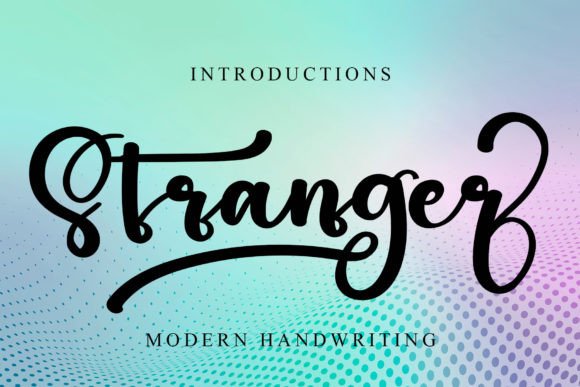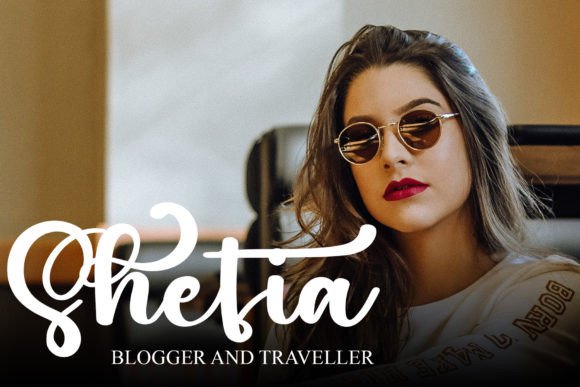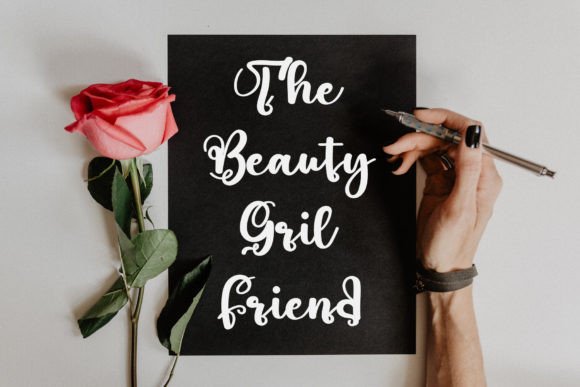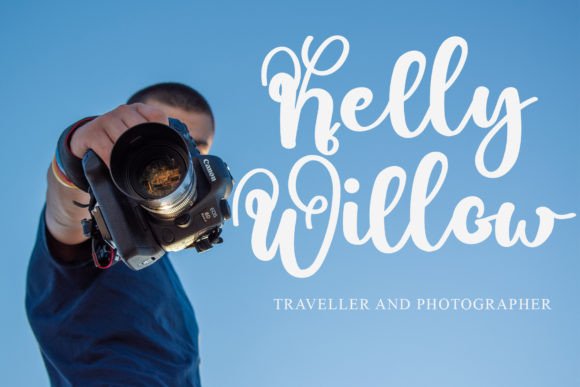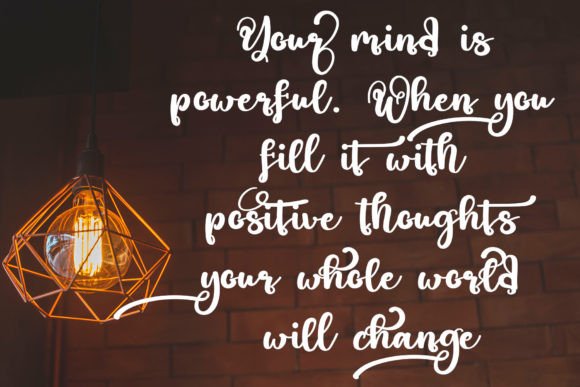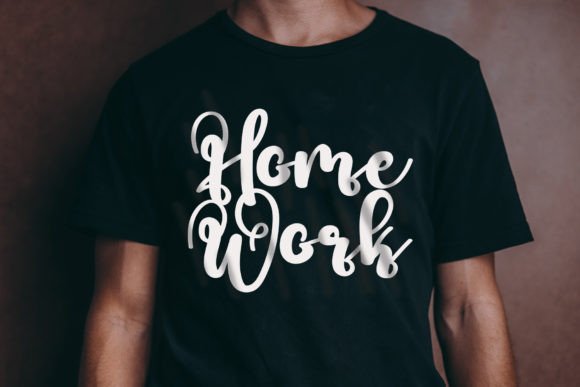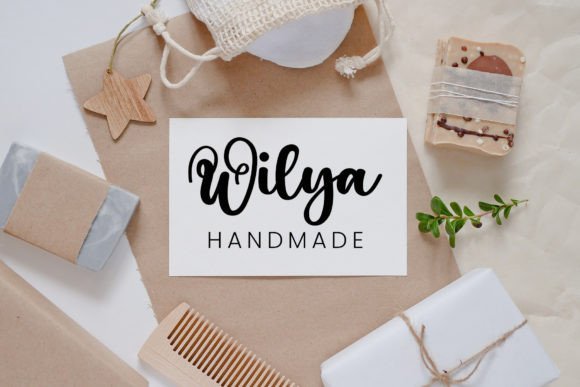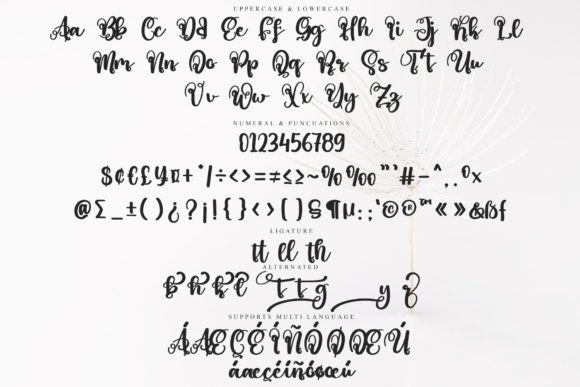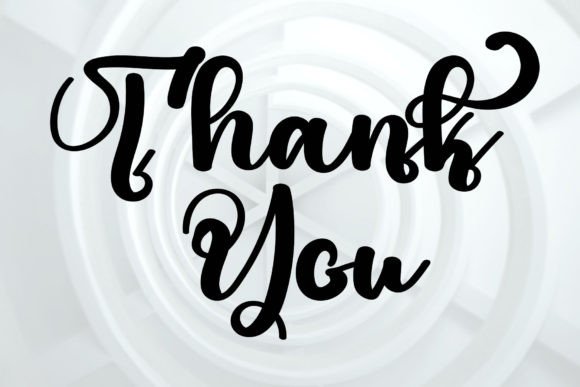
Stranger Font
Stranger is a enchanting handwritten font, meticulously crafted to infuse a touch of elegance into your designs. Whether you’re seeking fonts for Instagram posts or calligraphy scripts for DIY projects, this magical font possesses the transformative power to turn any creative idea into a true piece of art.
The careful design of Stranger ensures that it goes beyond mere functionality and becomes an integral part of the creative process. Its magical allure makes it an ideal choice for projects where you want to add a sense of wonder and sophistication.
From social media posts on Instagram to personalized DIY endeavors, Stranger adapts seamlessly to various applications. Its handwritten charm brings a unique and artistic quality to your text, making it stand out in a visually appealing way.
As you explore the possibilities with Stranger, you’ll find that it adds a layer of enchantment to your designs, creating a captivating visual experience. The elegance embedded in each stroke of this font transforms ordinary text into a work of art, making it a valuable asset for designers with a flair for the extraordinary.
In conclusion, Stranger is more than just a font; it’s a magical tool that elevates your designs to new heights of elegance. Whether you’re working on digital content or hands-on projects, let Stranger be the enchanting element that turns your creative ideas into true masterpieces.